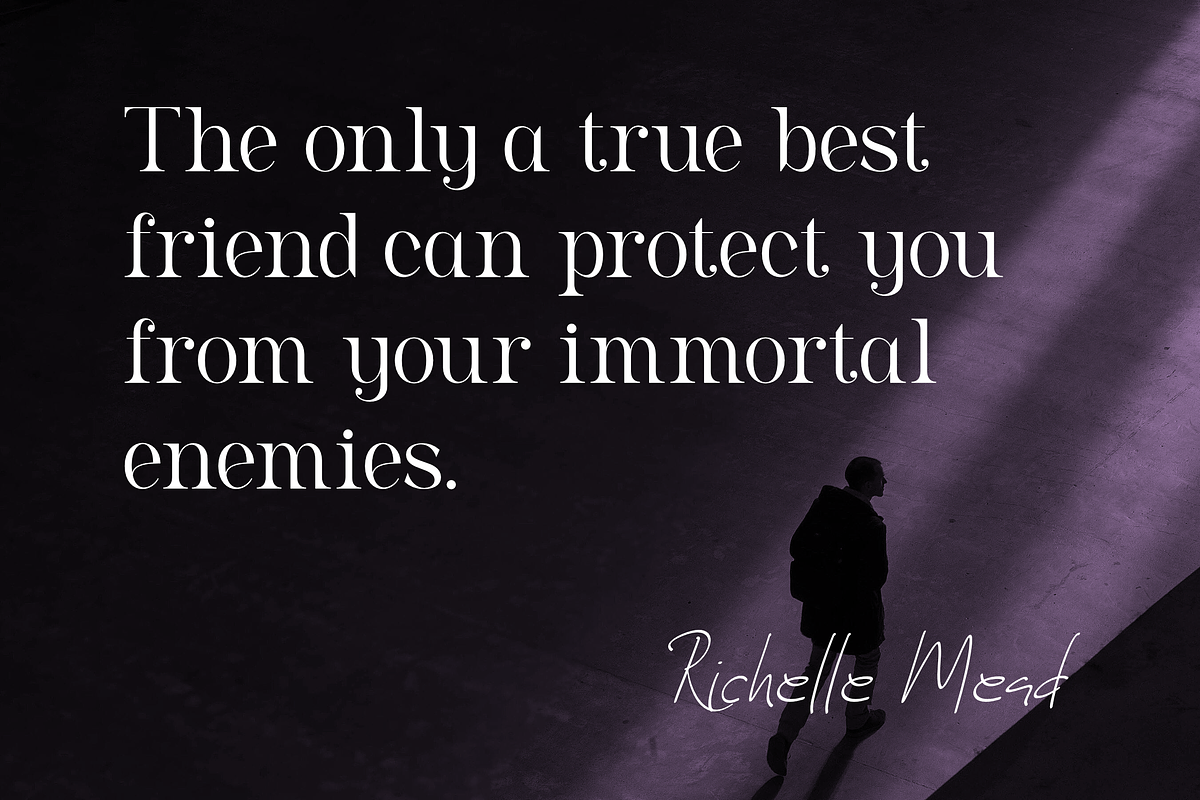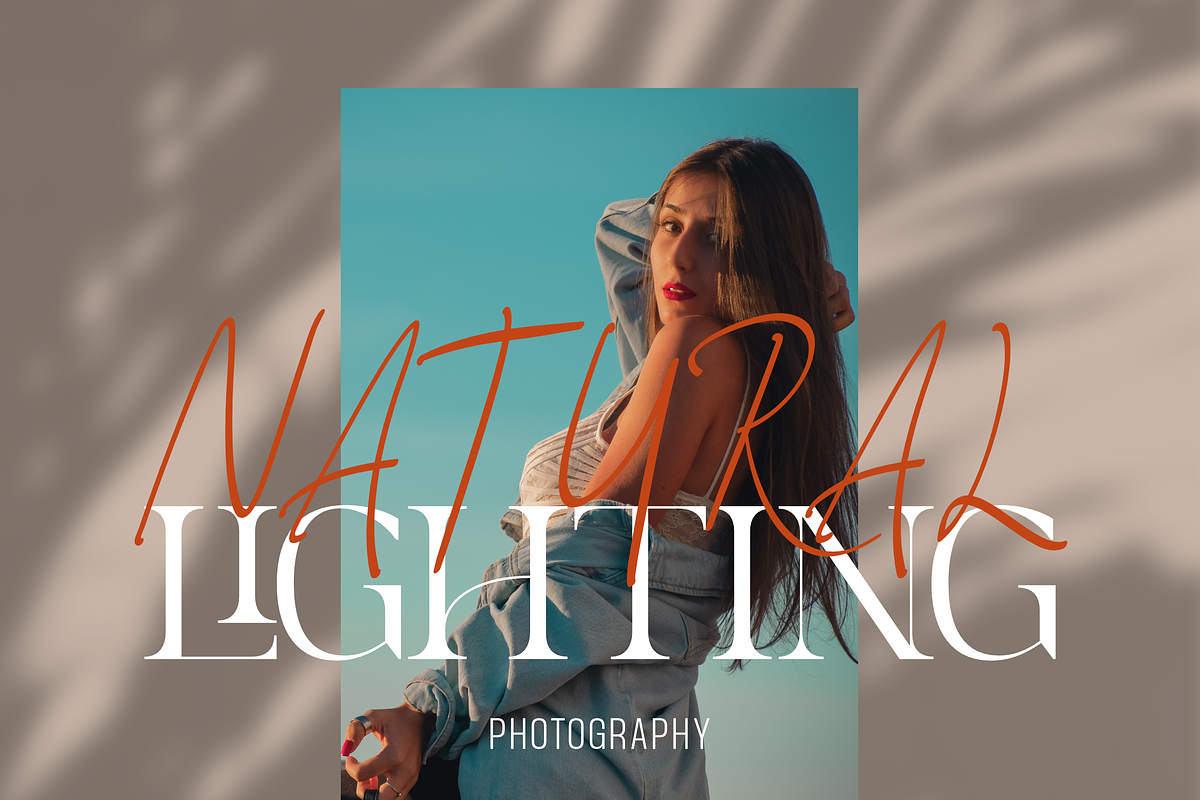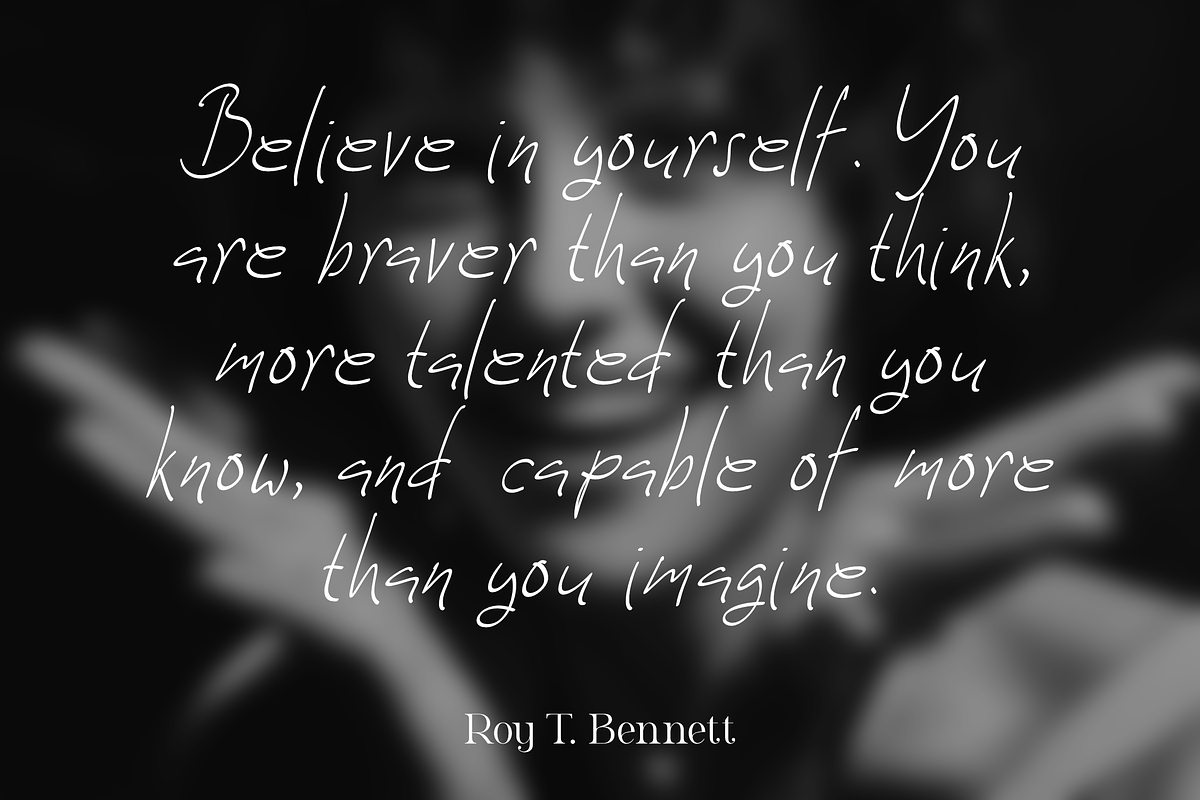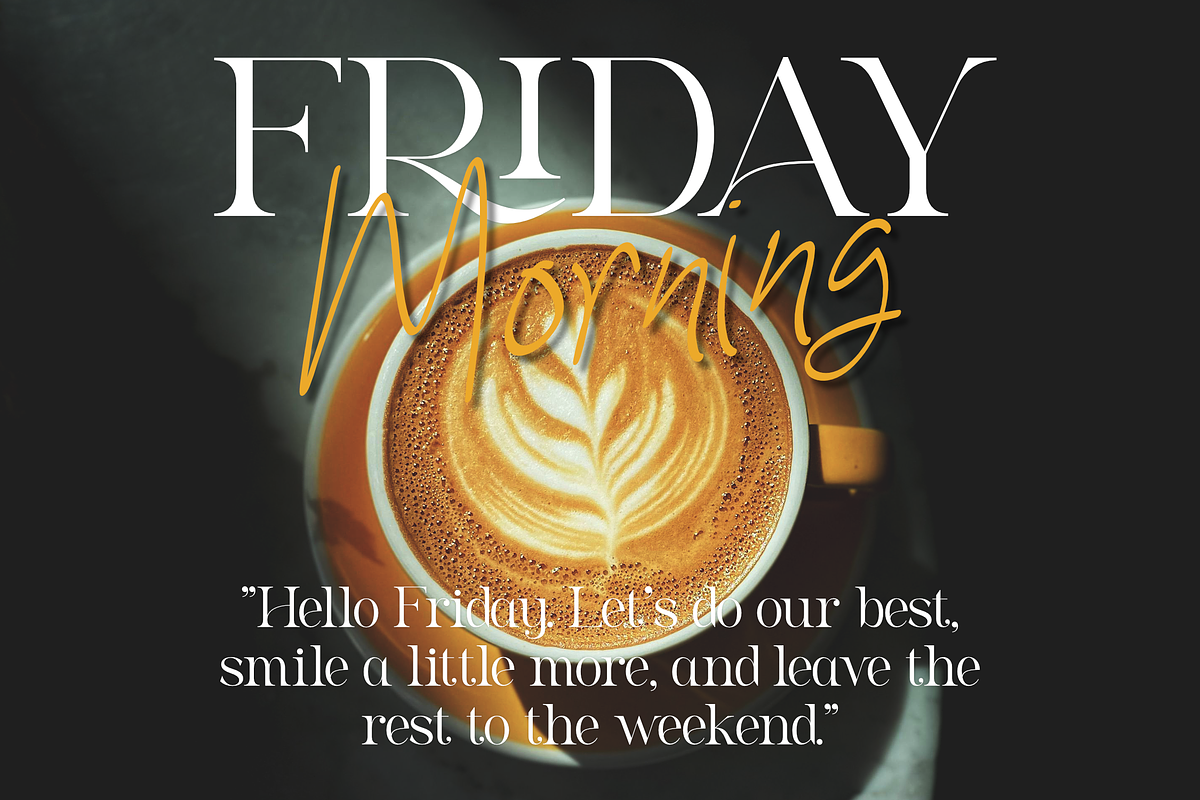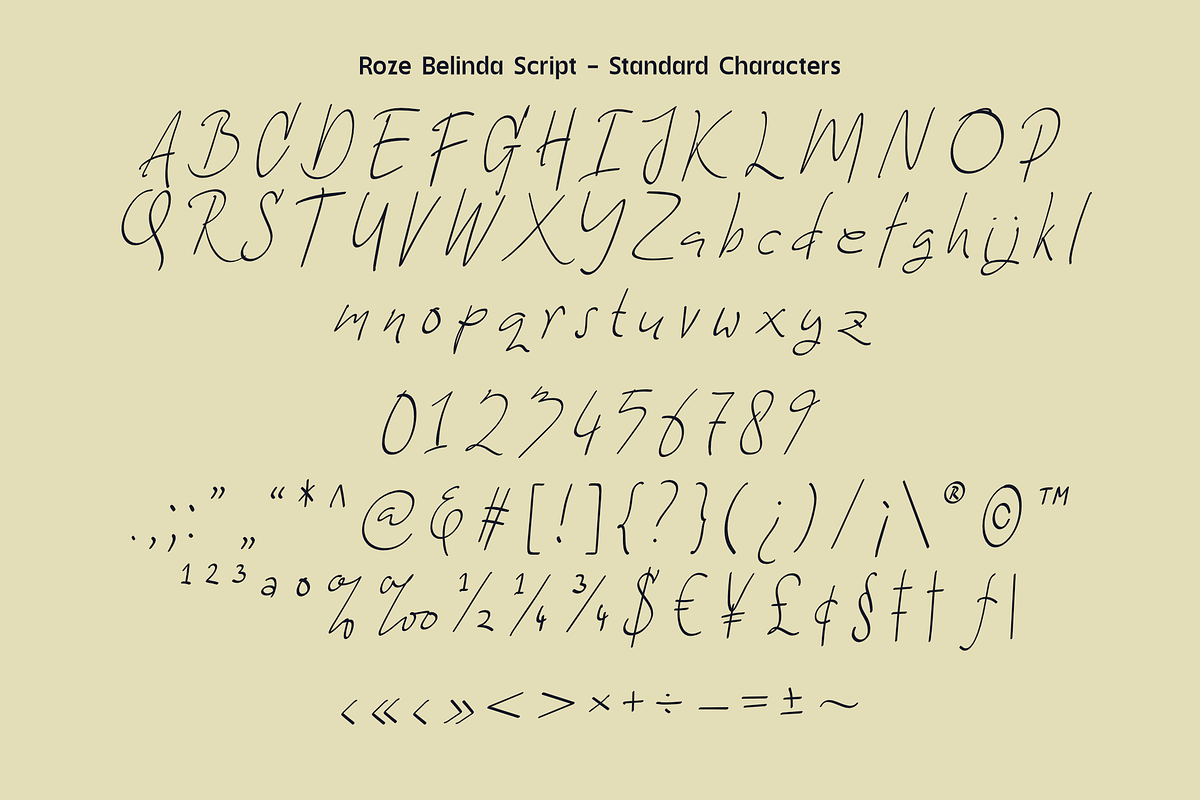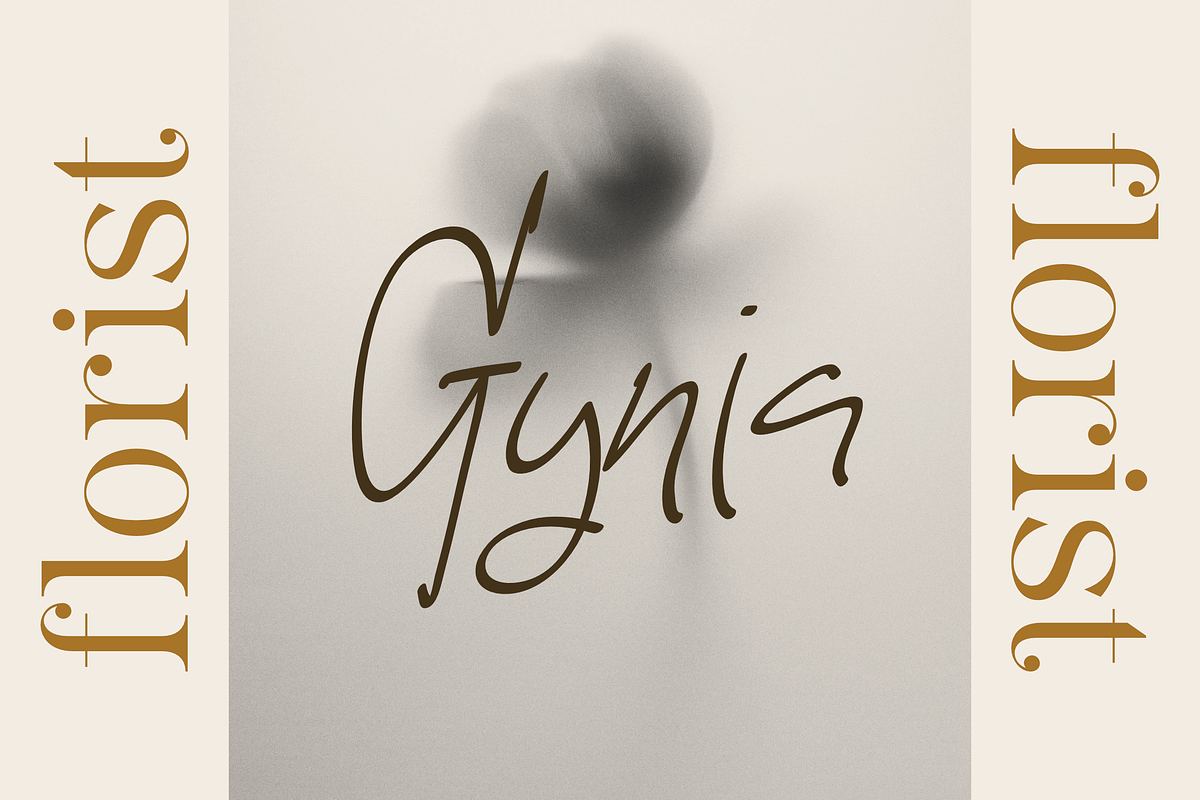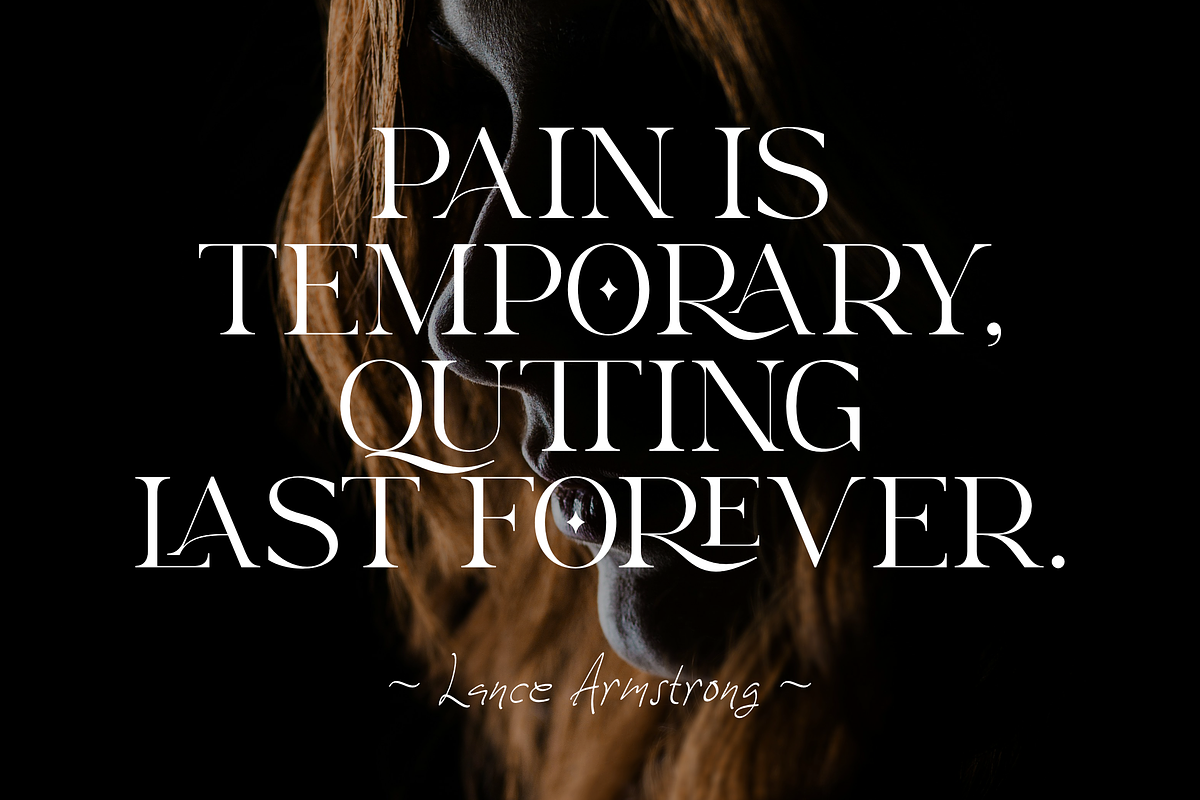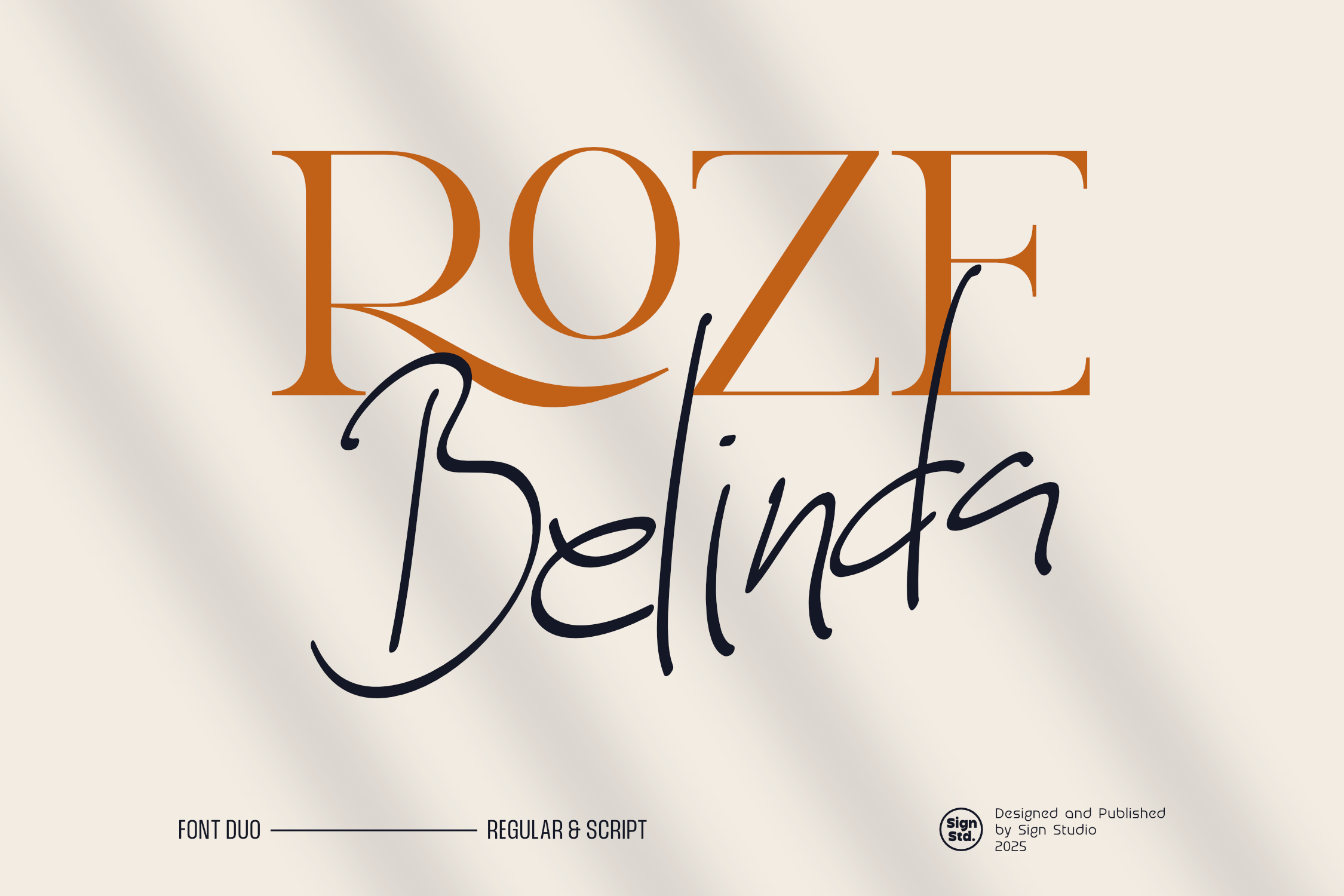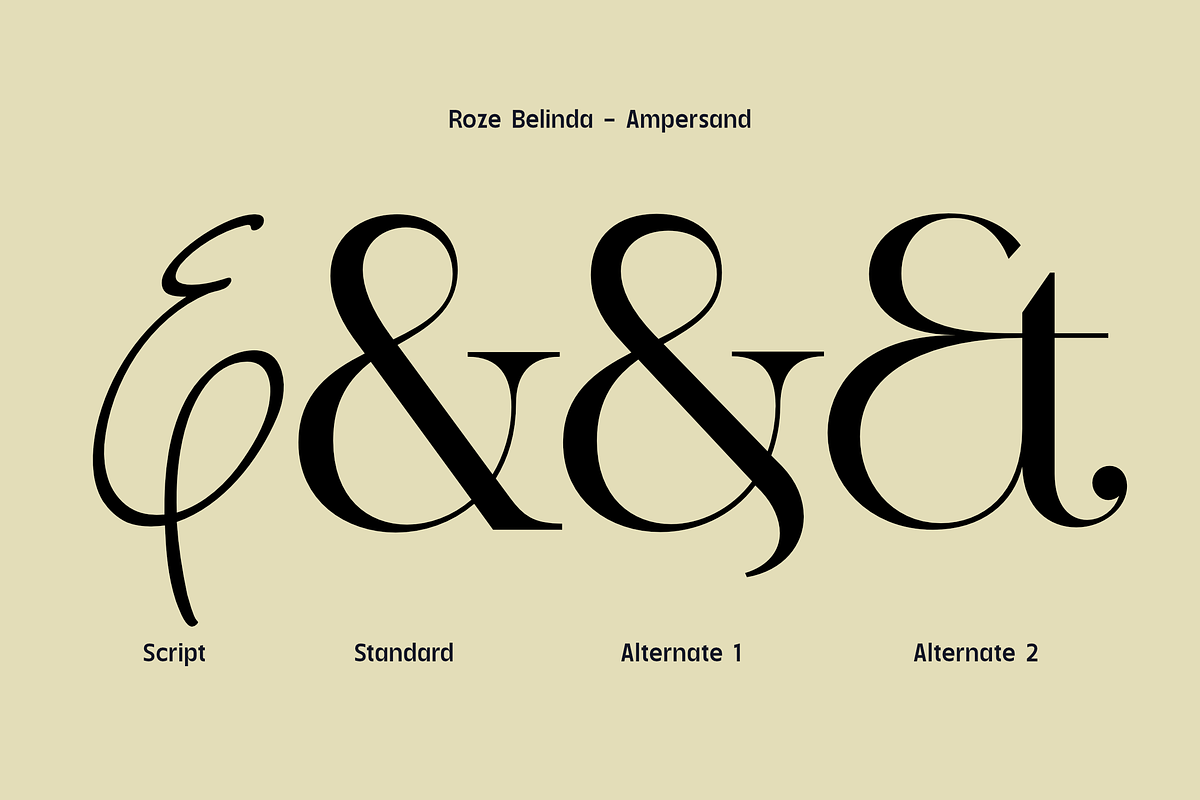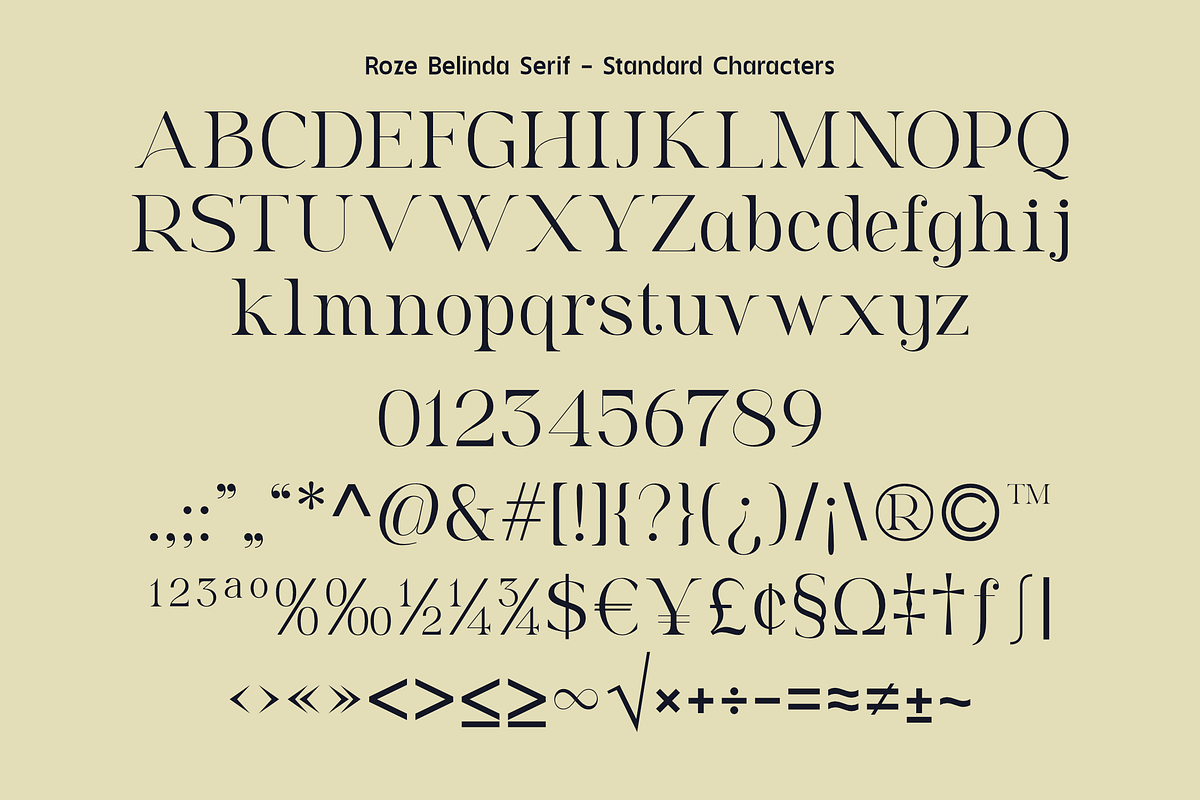
Roze Belinda - Display Font Duo
Roze Belinda is a charming and versatile font duo that combines a chic serif with a casual script. Designed to bring elegance and personality to your projects, this duo is perfect for branding, packaging, logos, and social media posts.
With its seamless pairing of the clean Regular and flowing Script styles, Roze Belinda captures both timeless sophistication and modern flair. Its graceful curves and delicate details make it an ideal choice for any design that needs a touch of class and warmth.